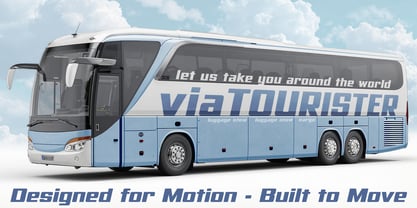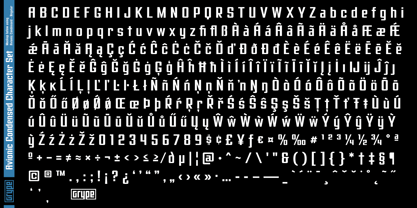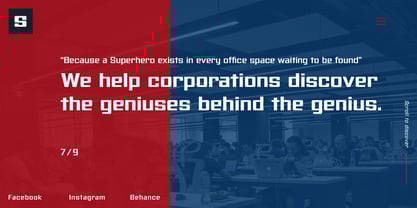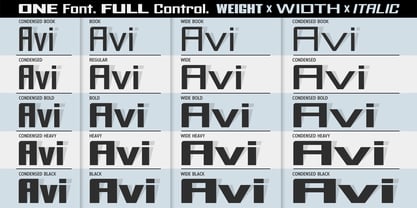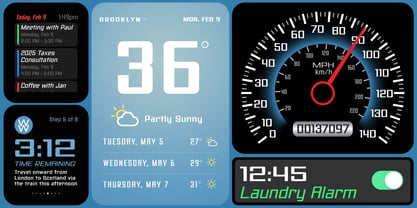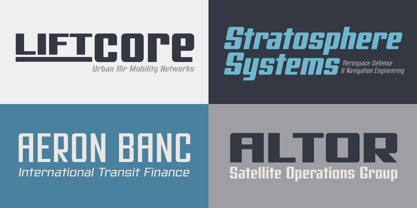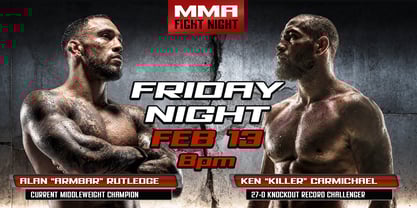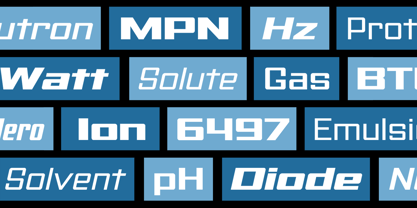
Avionic VF
Avionic Variable is a precision-engineered grotesk designed for aerospace systems, advanced interfaces, and modern industrial branding. Built as a full multi-axis variable font, Avionic offers seamless control across weight, width, and slant—allowing designers to adapt typography fluidly from dense technical environments to bold, high-impact identity work - while also pinning all 40 of the style instances from the static family. Its disciplined geometry, stable proportions, and carefully calibrated diagonals make Avionic equally suited to cockpit-style displays, navigation systems, automotive dashboards, and contemporary corporate identities. Every interpolation has been engineered for optical consistency, ensuring clarity and authority across the full design space. The Avionic Complete Bundle features a broad static collection alongside its variable counterpart as a bundle, supporting demanding production workflows for branding, editorial systems, environmental graphics, UI design, and motion graphics. Extensive language coverage and meticulous drawing make Avionic a dependable workhorse for complex professional projects and provide flexible licensing options for production teams and agencies. Whether deployed in data-rich interfaces or headline-driven campaigns, Avionic Variable delivers technical rigor, flexibility, and confidence—engineered for systems that move.